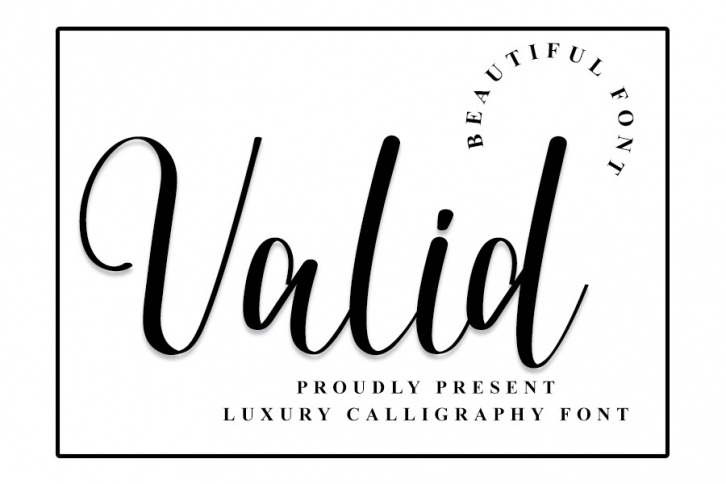
Valid is a neat and beautiful handwritten font described by an elegant touch, perfect for your favorite projects. Fall in love with its incredibly distinct and timeless style, and use it to create spectacular designs!